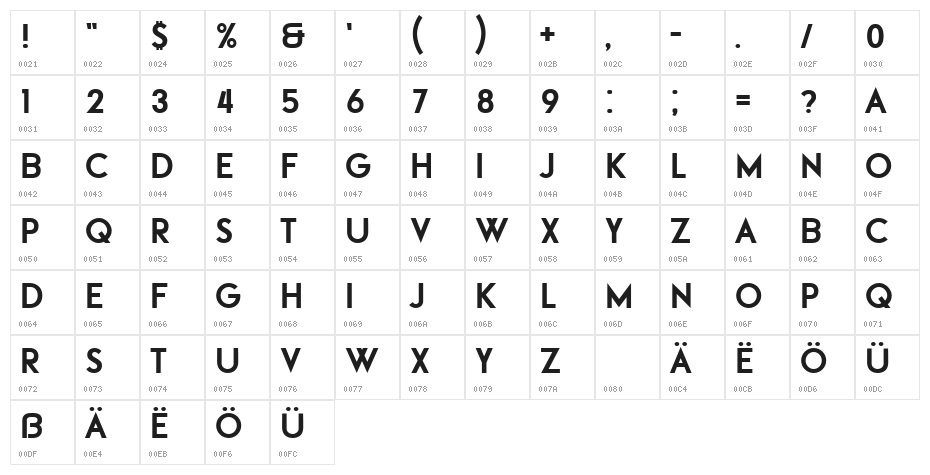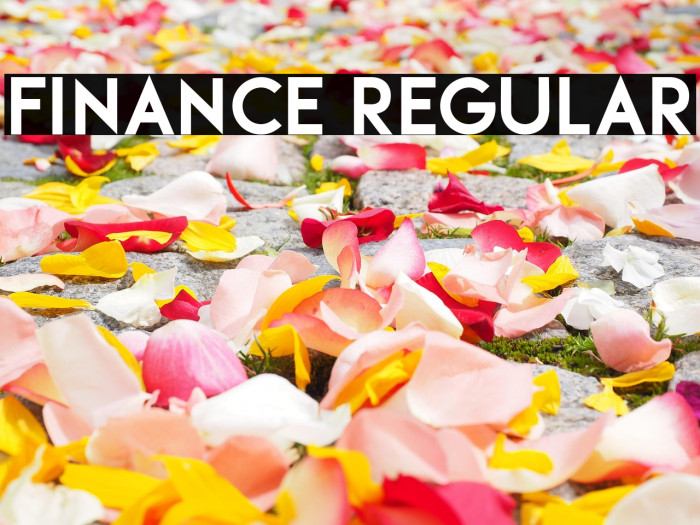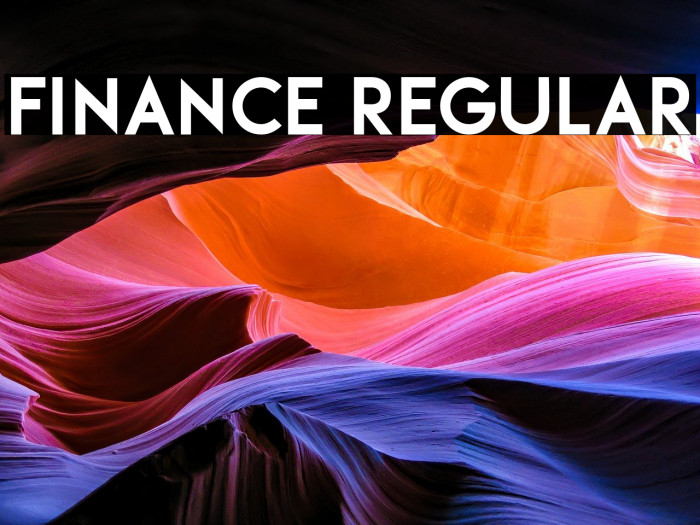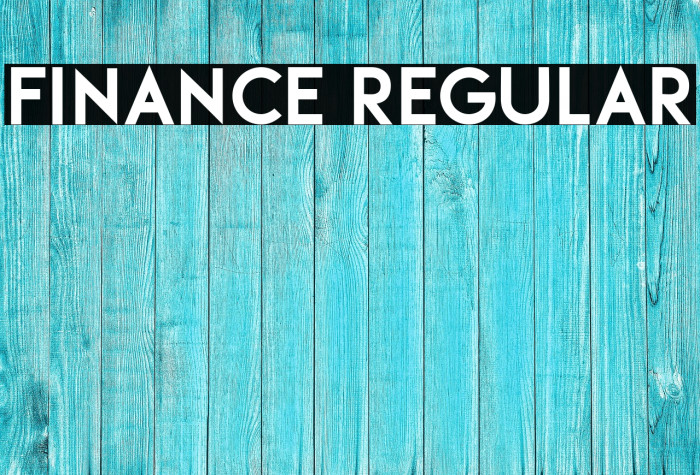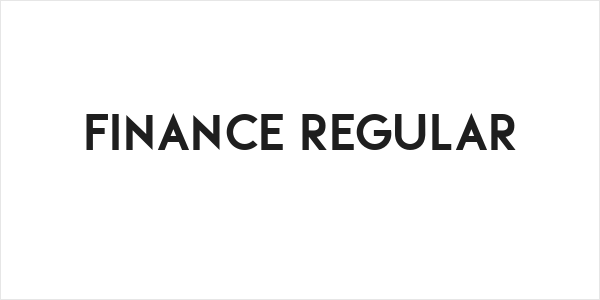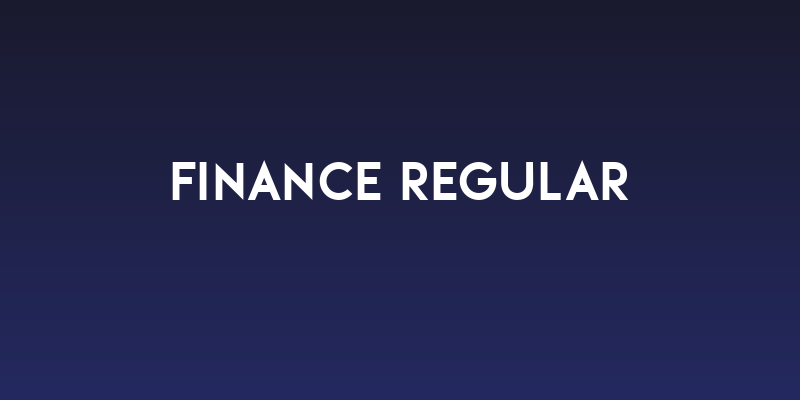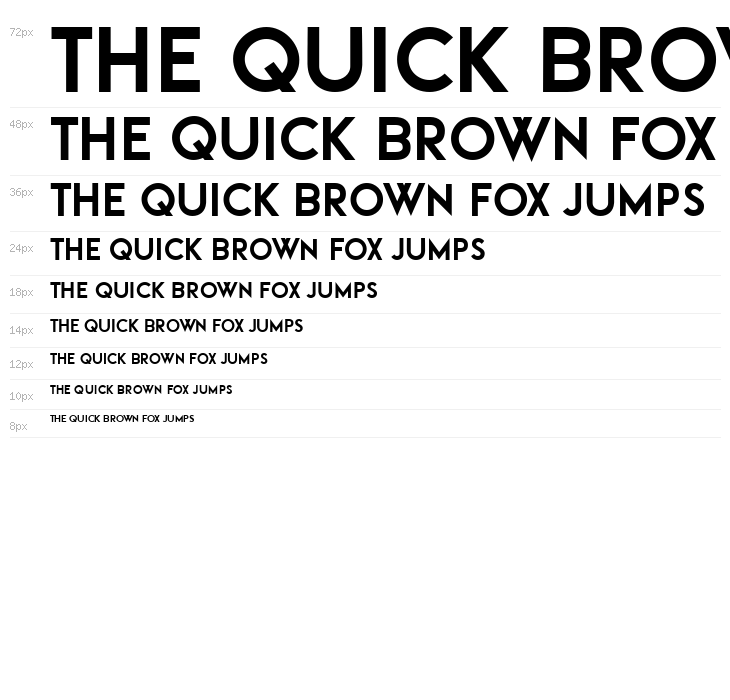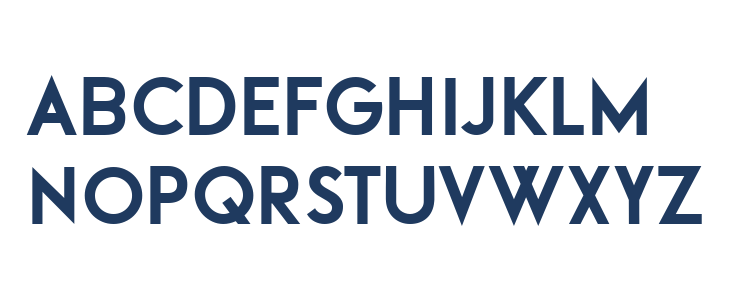
Finance Regular Font
Finance Regular Description
This font features a clean and modern sans-serif design, characterized by its bold and uniform stroke weight. The characters are well-proportioned, with a geometric influence that gives them a contemporary feel. The uppercase and lowercase letters maintain a consistent style, ensuring readability and versatility. The numerals are clear and distinct, making them suitable for various applications. The special characters are designed to complement the overall aesthetic, providing a cohesive look across all glyphs.
| Use Case | Headlines, Logos, Digital media |
| Proposed Projects | Ideal for corporate branding, digital media, advertising, and editorial design. |